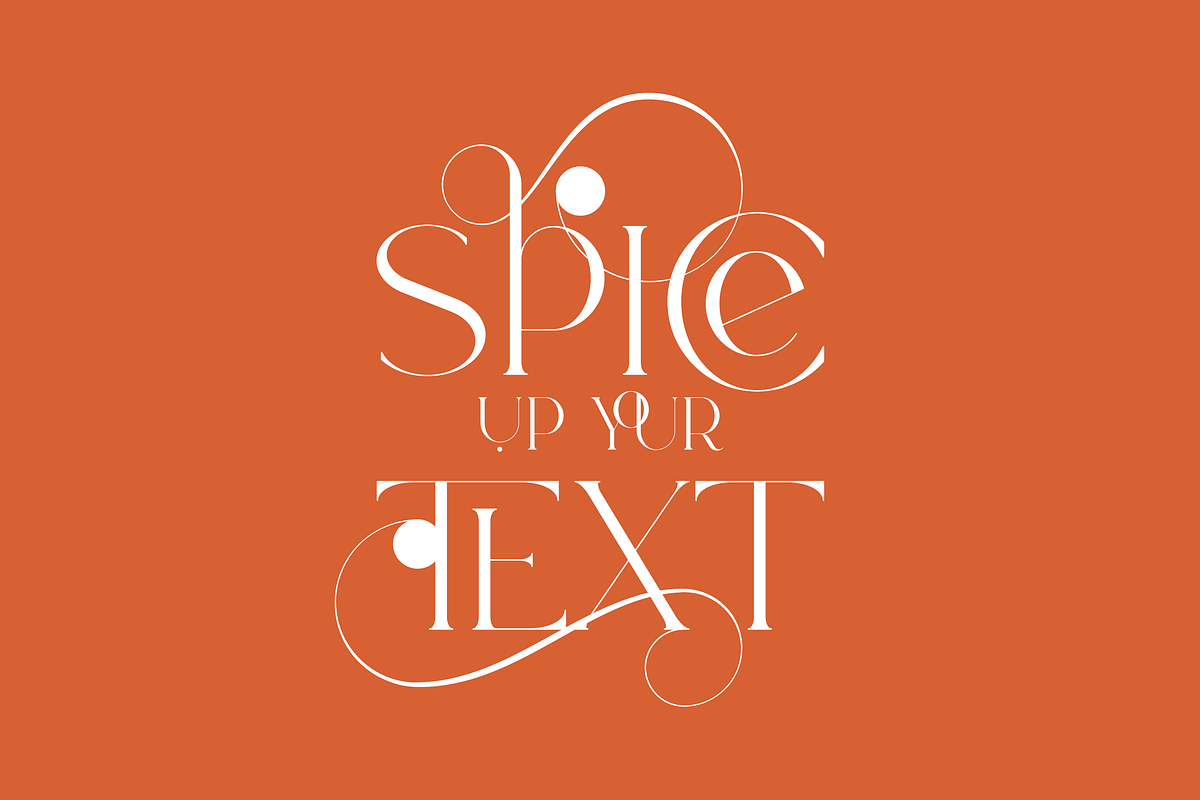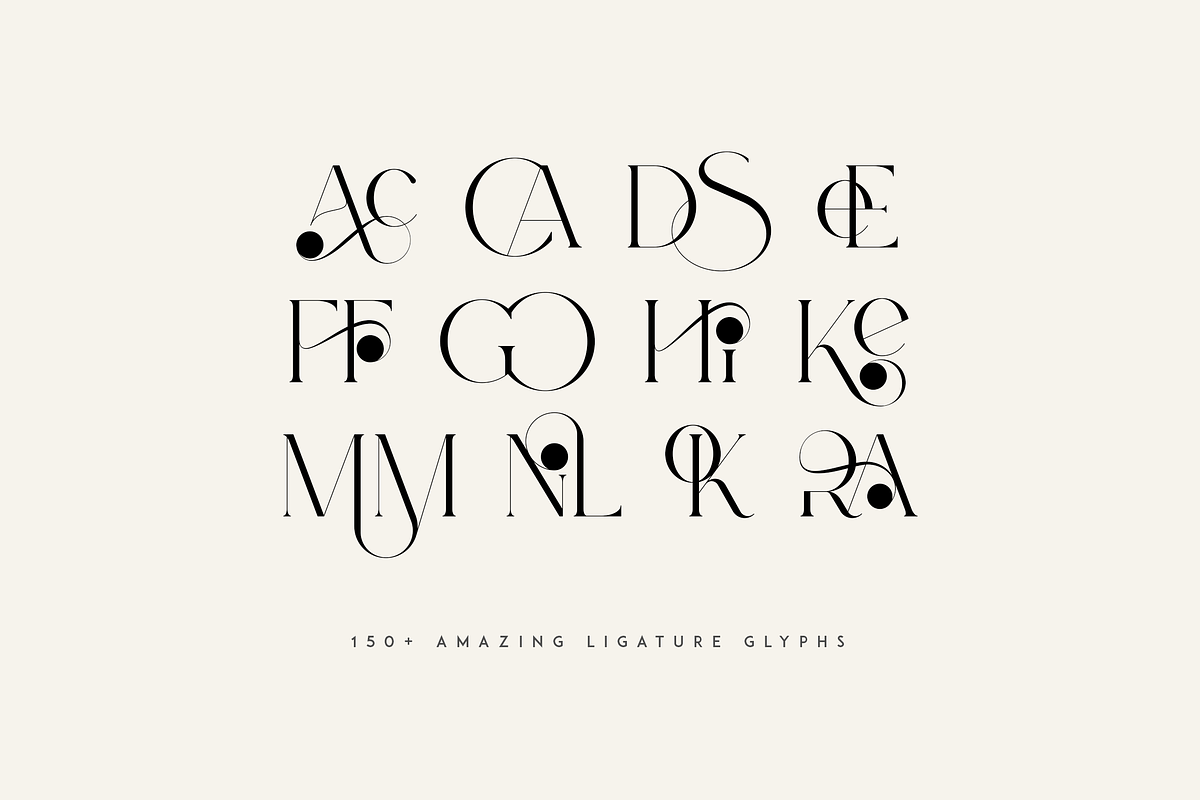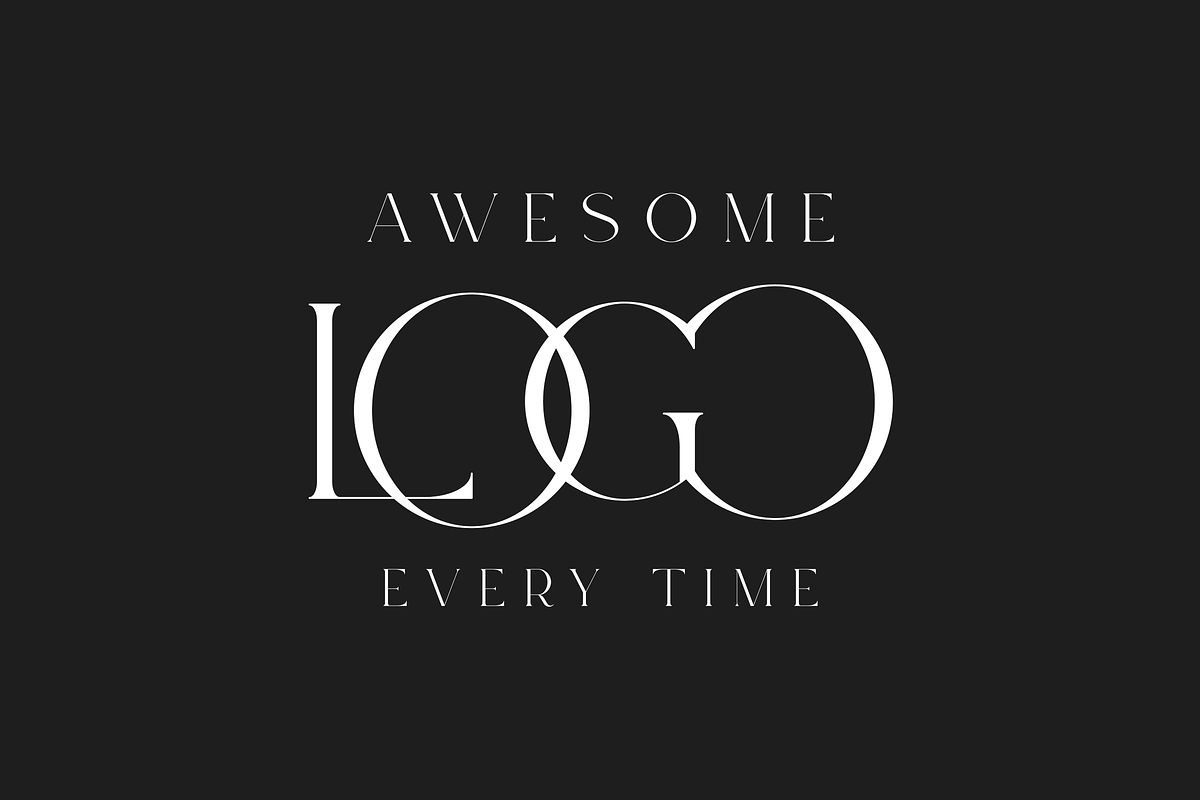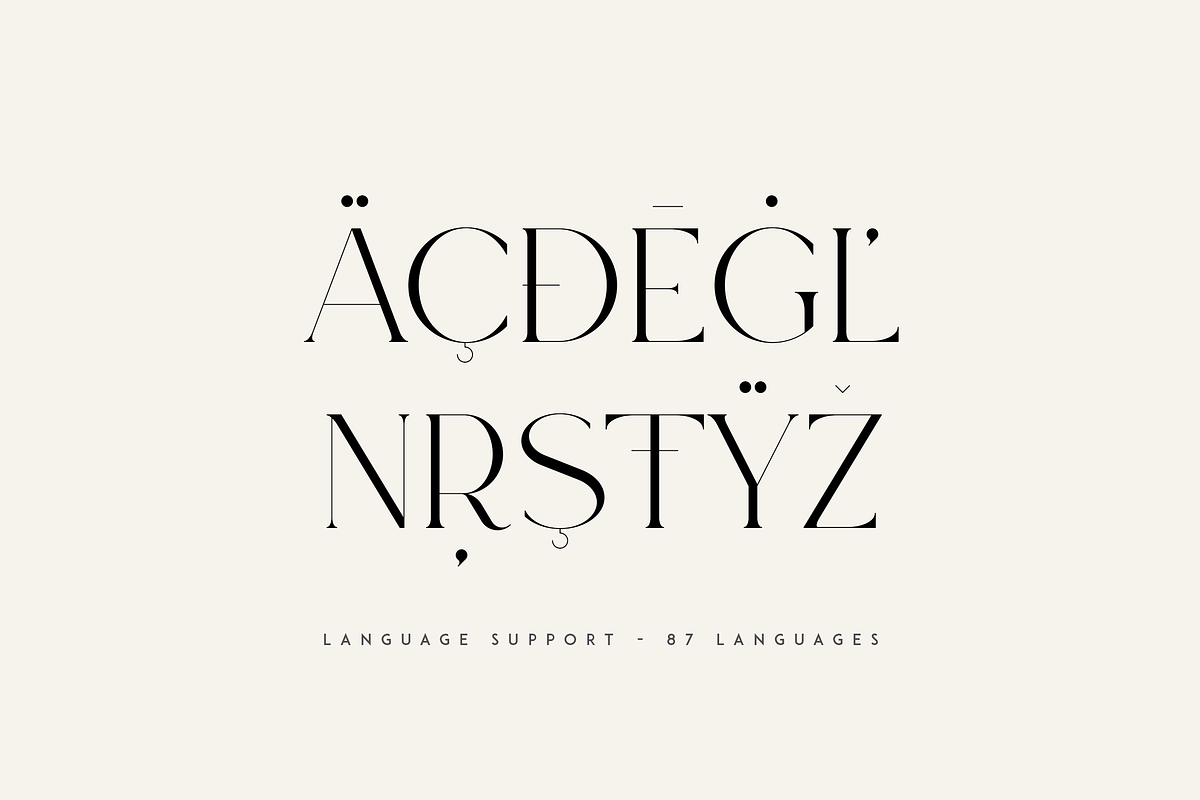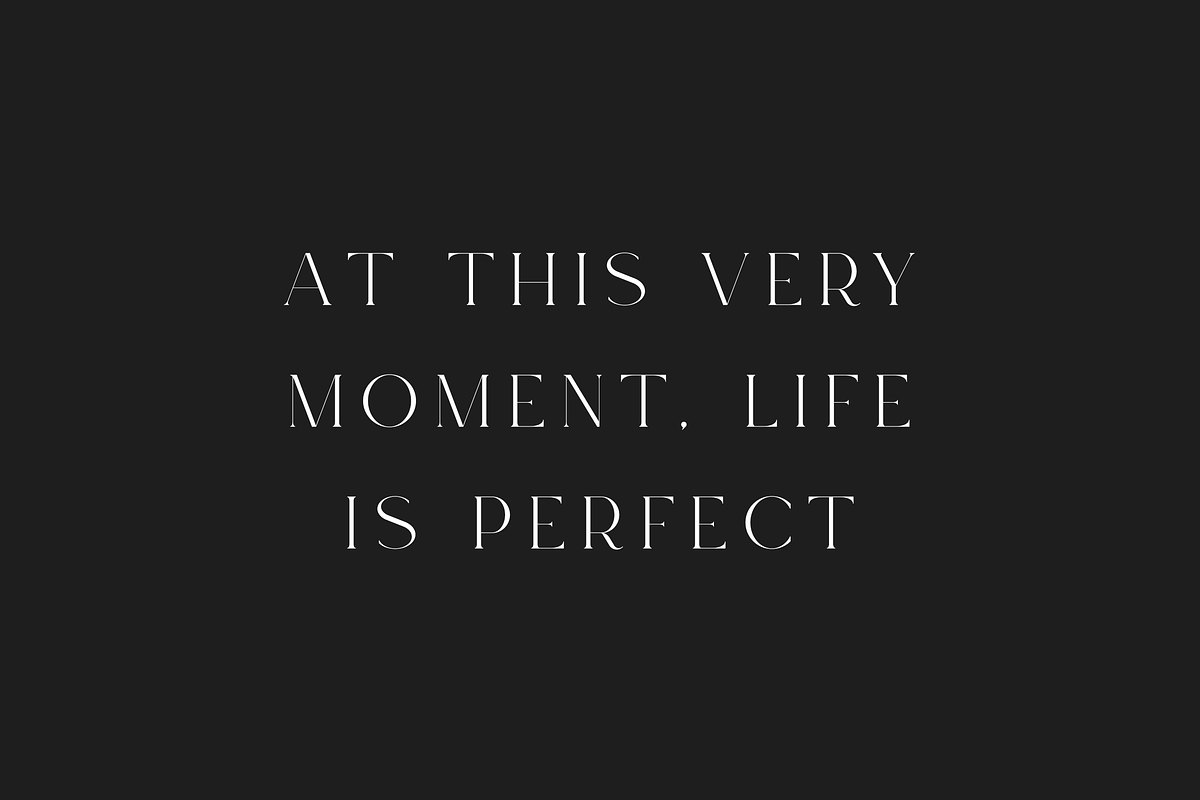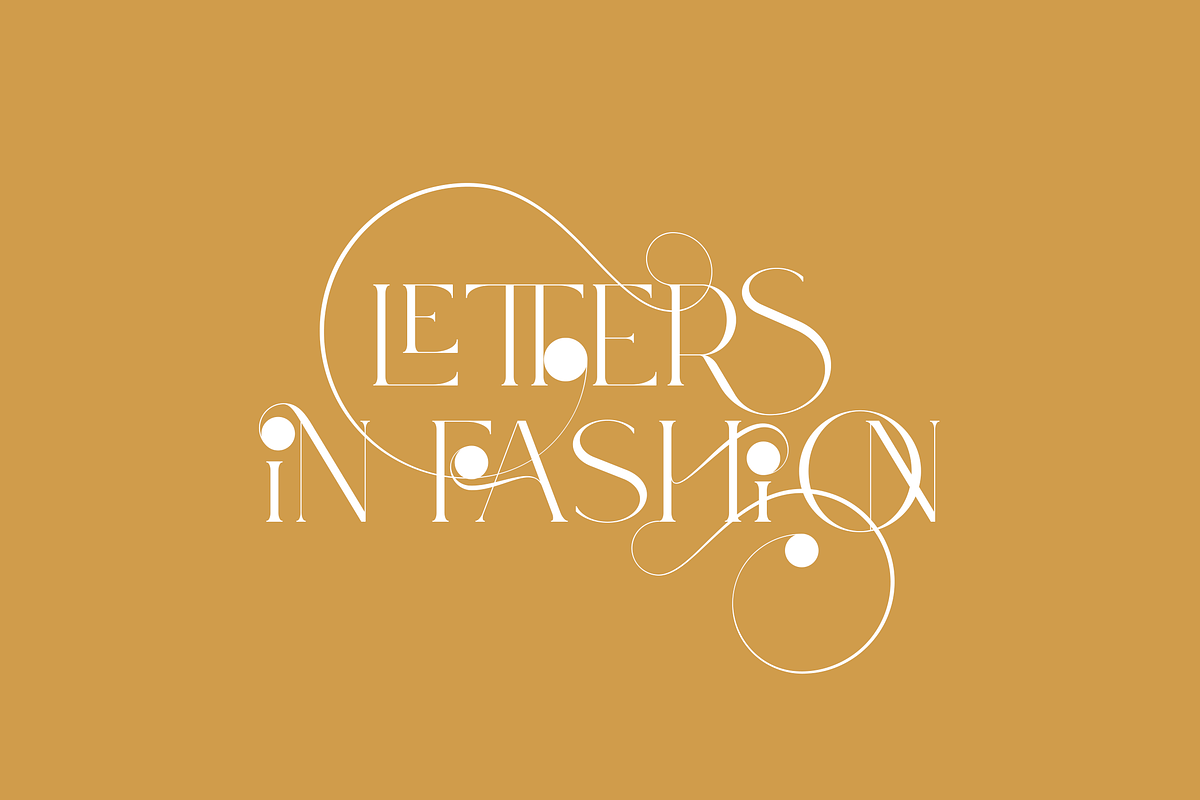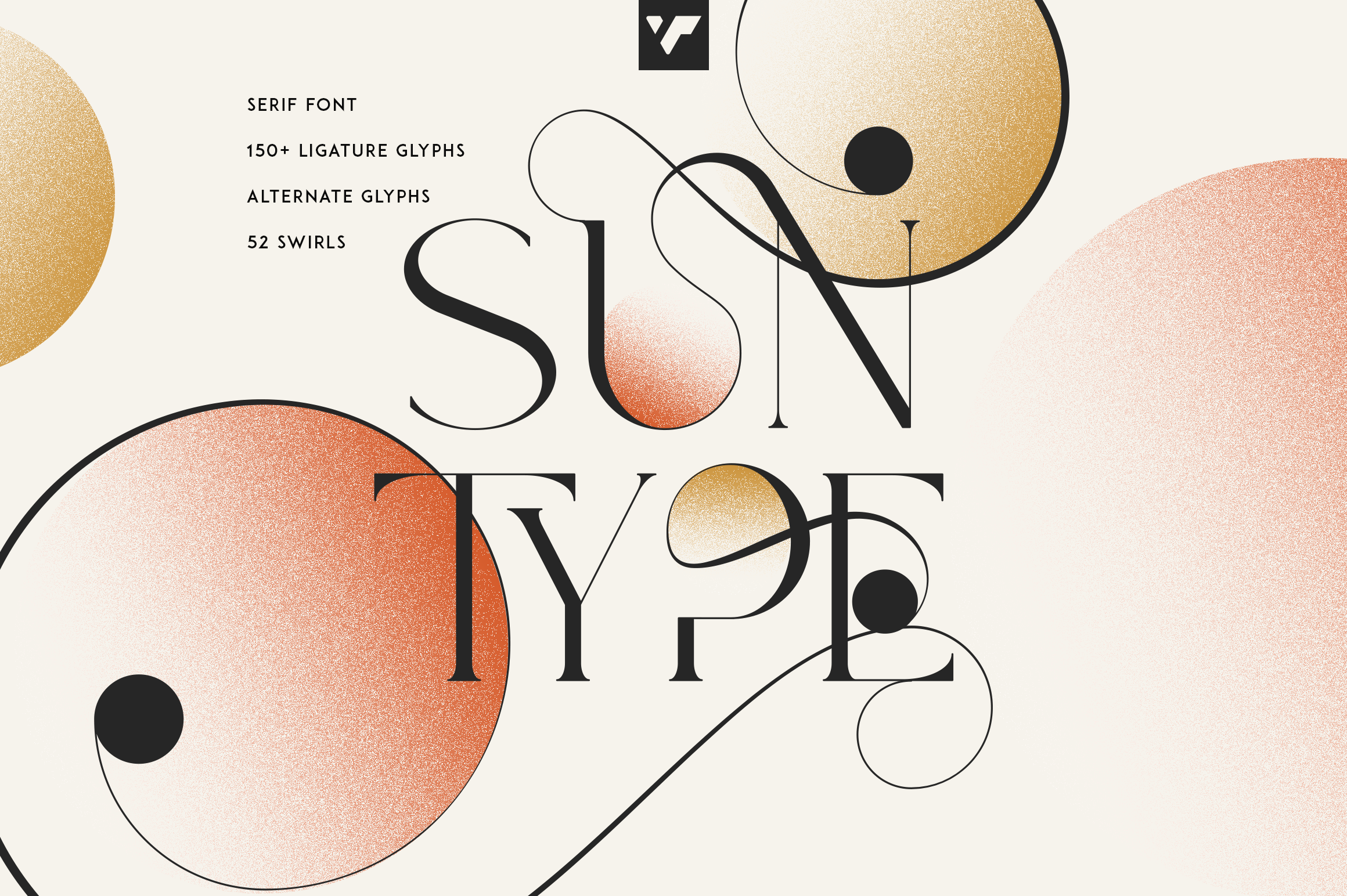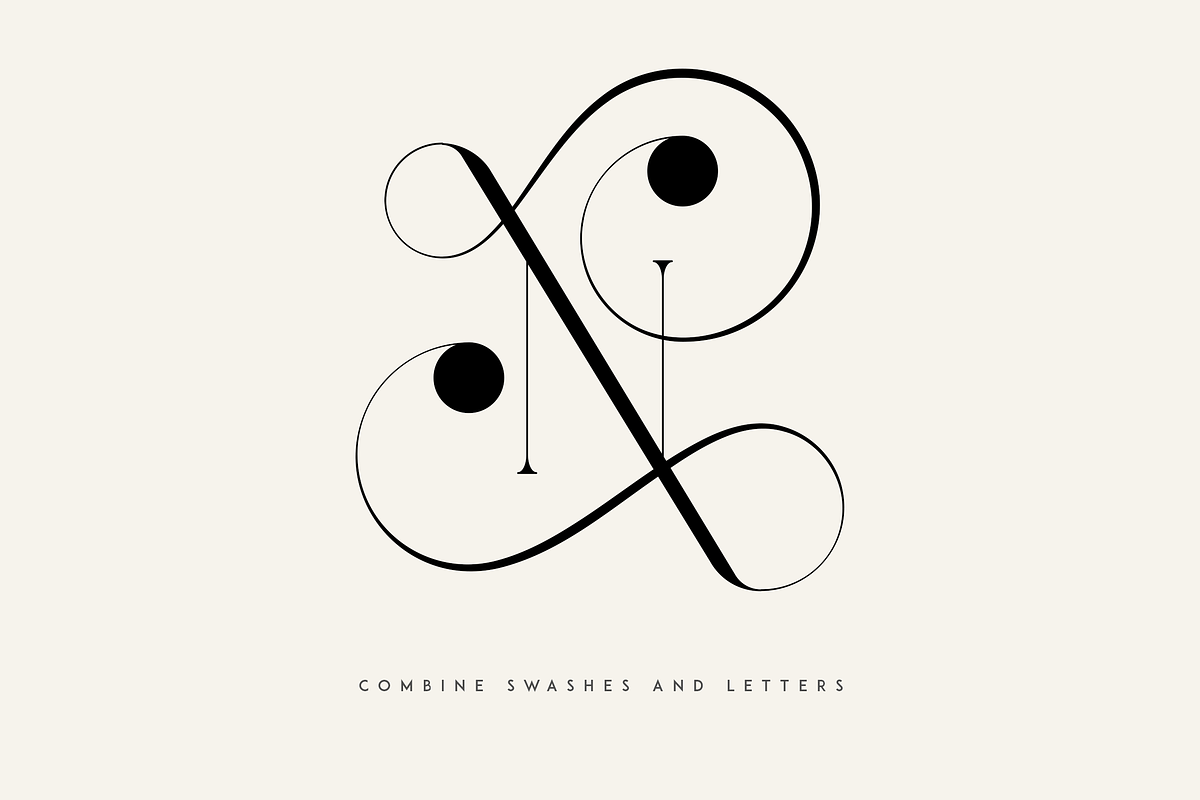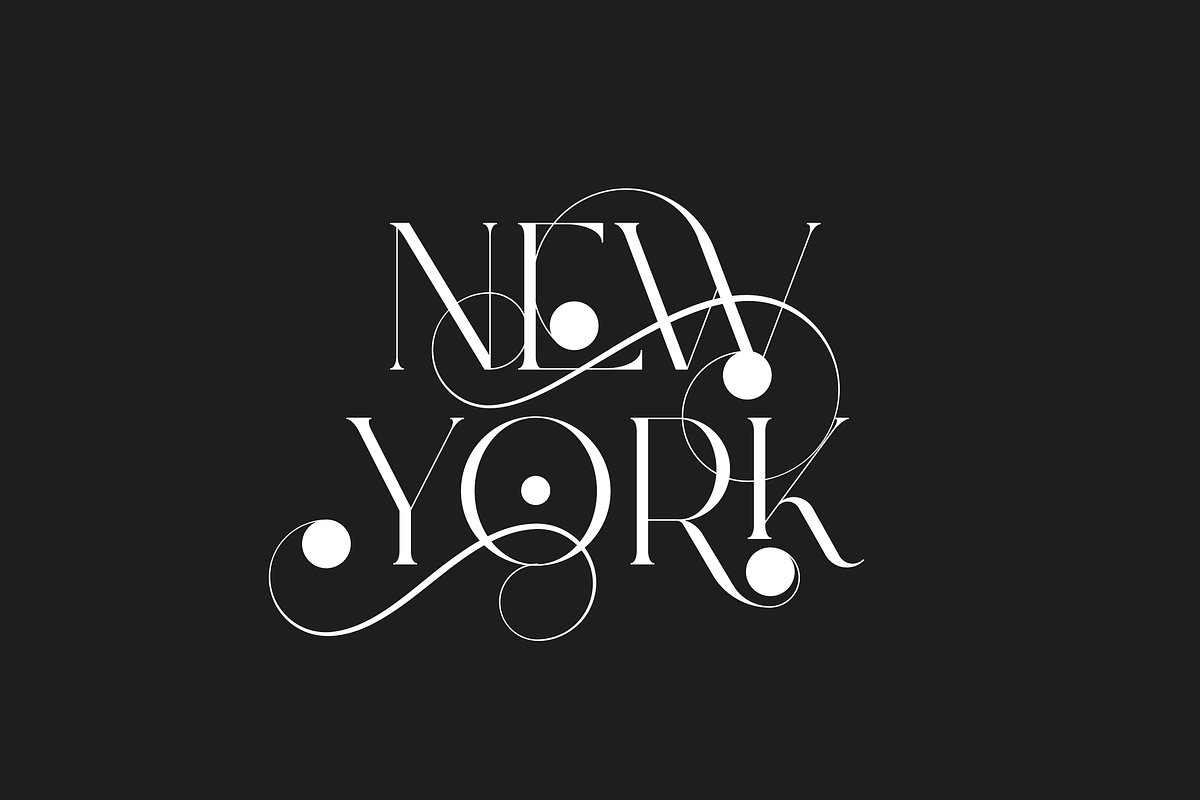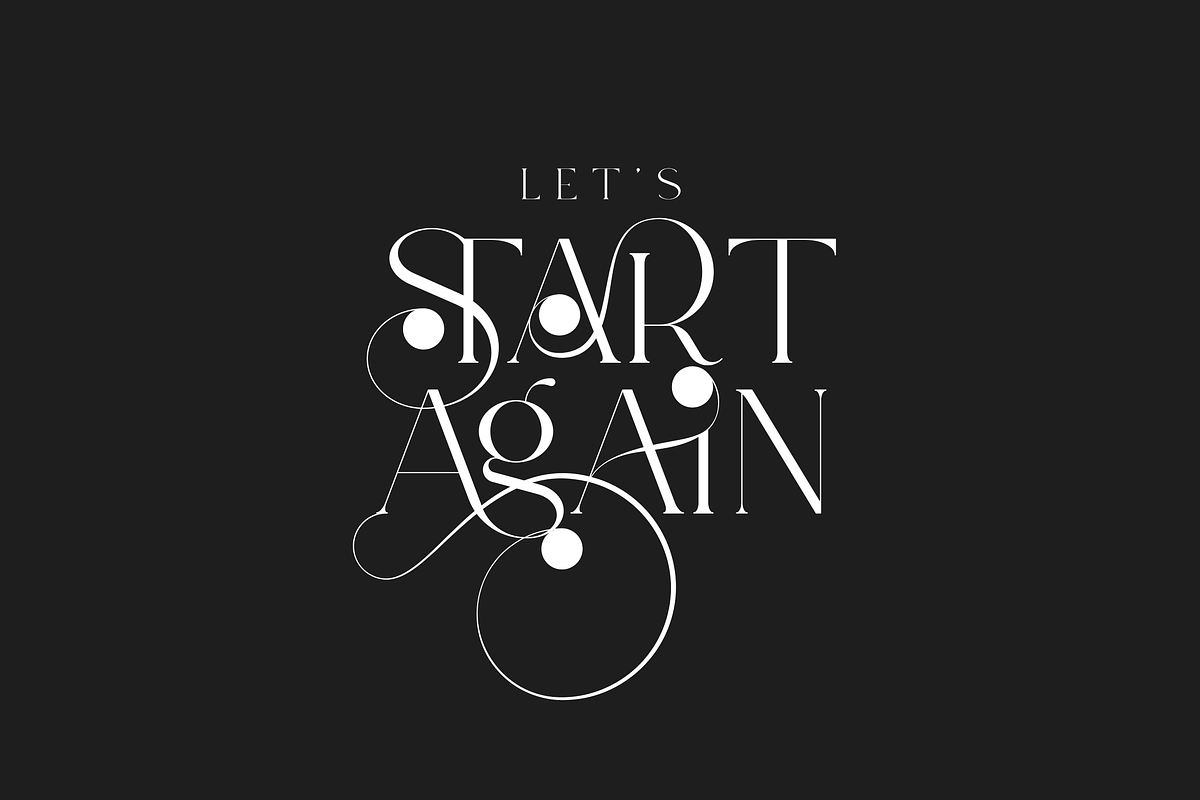
Sun Type Creative logo font
Introducing Sun Type, a delightful and versatile serif logo font that exudes creativity and charm. With over 150 ligature glyphs and alternate characters, this font offers a wide range of design possibilities, allowing you to craft unique and visually stunning logos and brand identities.
Sun Type goes above and beyond with its extensive collection of 52 swashes, offering you the opportunity to add elegant and decorative elements to your text. These swashes effortlessly elevate your designs, giving them a touch of sophistication and individuality.
Not only does Sun Type excel in its aesthetic appeal, but it also showcases its practicality by supporting a staggering 87 languages. No matter where your audience is located or what language they speak, you can confidently communicate your message with this font.
Language Support : Afrikaans, Albanian, Asu, Basque, Bemba, Bena, Breton, Chiga, Colognian, Cornish, Czech, Danish, Dutch, Embu, English, Estonian, Faroese, Filipino, Finnish, French, Friulian, Galician, Ganda, German, Gusi,i Hungarian, Indonesian, Irish, Italian, Jola-Fonyi, Kabuverdianu, Kalenjin, Kamba, Kikuyu, Kinyarwanda, Latvian, Lithuanian, Lower Sorbian, Luo, Luxembourgish, Luyia, Machame, Makhuwa-Meetto, Makonde, Malagasy, Maltese, Manx, Meru, Morisyen, North Ndebele, Norwegian, Bokmål, Norwegian, Nynorsk, Nyankole, Oromo, Polish, Portuguese, Quechua, Romanian, Romansh, Rombo, Rundi, Rwa, Samburu, Sango, Sangu, Scottish, Gaelic, Sena, Shambala, Shona, Slovak, Soga, Somali, Spanish, Swahili, Swedish, Swiss, German, Taita, Teso, Turkish, Upper, Sorbian, Uzbek (Latin), Volapük, Vunjo, Walser, Welsh, Western Frisian, Zulu
Ligatures AB,AC,AD,AF,AG,AI,AK,AL,AM,AN,AP,AR,AT,AU,AV,AW,AY,BA,BE,BI,BL,BO,BU,CA,CC,CE,CH,CI,CK,CL,CO, CR,CT,CU,DA,DD,DE,DI,DO,DS,DY,EA,EC,ED,EE,EF,EG,EI,EL,EM,EN,EP,ER,ES,ET,EV,EW,EX,EY,FA,FE,FF,FI, FO,FR,GA,GE,GH,GO,GS,HA,HE,HI,HO,HT,IK,IL,IM,IN,IT,IH,KE,KI,KN,KO,LA,LE,LF,LI,LK,LL,LO,LT,LY,MA,ME, MM,MO,MP,MS,MU,NC,ND,NE,NG,NK,NL,NN,NO,NS,NT,OA,OB,OC,OD,OF,OG,OI,OK,OL,OM,ON,OO,OP, OR,OS,OT,OU,OV,OW,PE,RA,RE,RF,RK,RM,RN,RO,RR,RS,SA,SC,SE,SH,SK,SS,ST,TC,TE,TH,TI,TL,TO,ST,TT,TU, TW,TY,UC,UE,UL,UM,UN,UR,US,UT,VA,VE,VO,WA,WE,WH,WN,WO,YE,YO,YS,MEN,FRO,RON,ROM,THE, AND,ING,HER,HAT,HIS,THA,ERE,FOR,ENT,TER,WAS,YOU,ITH,VER,ALL,THI,OUL,GHT,AVE,HAV,HIN,ATI, EVE,HING,WERE,FROM,THAT,THER,HAVE,THIS,MENT